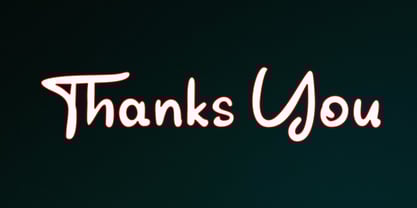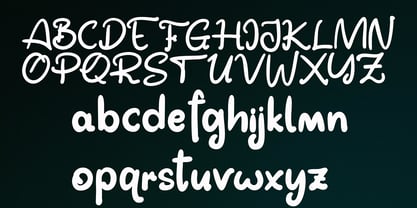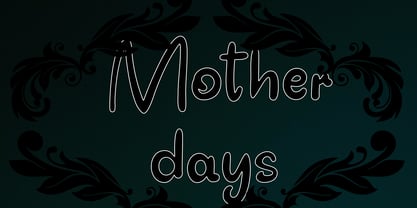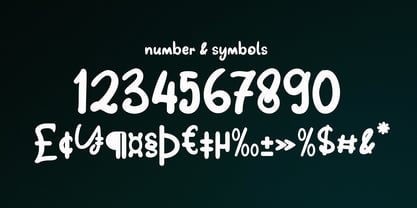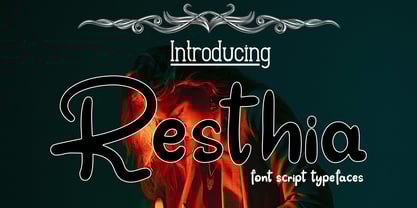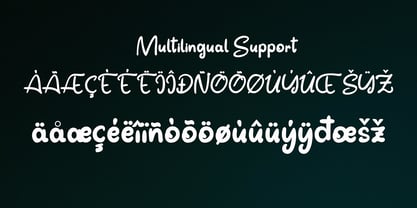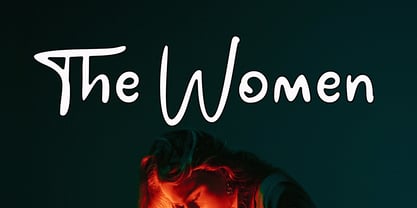
Resthia
by Canden Meutuah
The Resthia Font Family was designed by Canden Meutuah and published by Canden Meutuah. Resthia contains 1 styles. More about this family
Resthia is a beautiful and eye-catching font designed with a soft, unique touch. Its distinctive strokes impart a special character, making it both meaningful and versatile for various applications. With an extensive range of characters, this font is perfect for design projects, crafts, and other creative endeavors. Compatible with multiple platforms, including Windows and open-source systems, this natural font style is ideal for a wide array of products. It enhances your designs, making them appealing to diverse audiences across different artistic and creative fields.